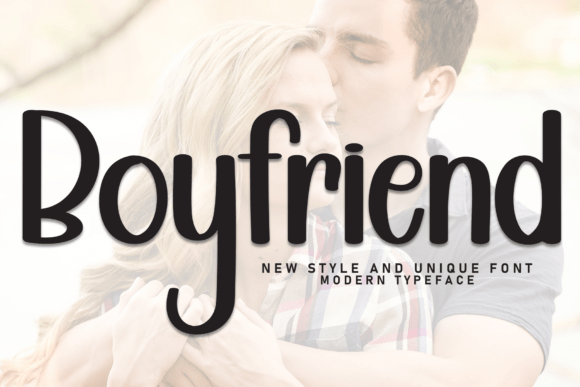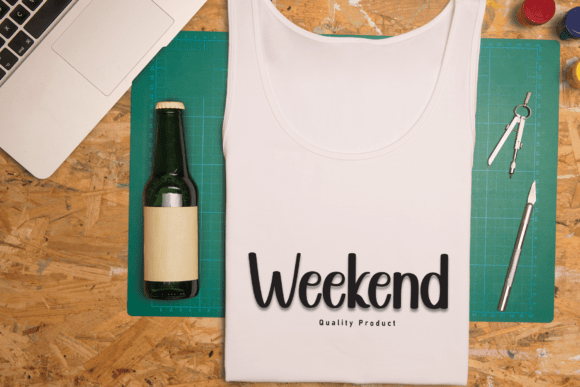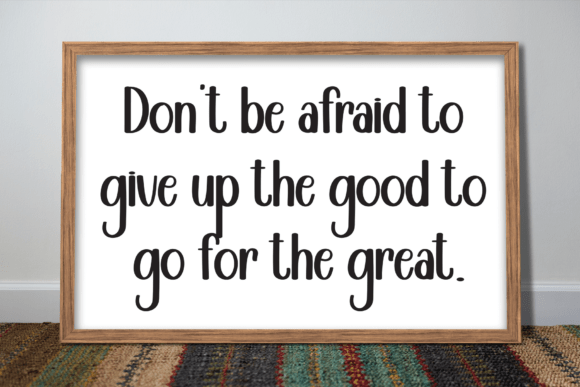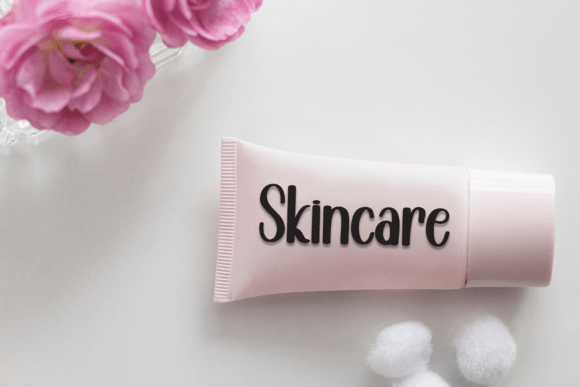
Boyfriend Font: A Playful Display Font for Cricut & DIY Projects
About the Boyfriend Font
Add a touch of class to your work with the Boyfriend Font, a truly exceptional typeface. Introducing a charming and delightful handwritten display font: An enchanting symphony of friendly cursive strokes, intentionally created to infuse sweetness and warmth in each line. Perfectly designed to lend a playful flair, this font exhibits an excellent choice for crafting romantic wedding invitations, heartfelt cards, or any design seeking a dash of fun. Create inviting and visually appealing designs that captivate and resonate with your audience using this irreplaceable font.
Boyfriend Font’s playful, friendly cursive is ideal for headlines, short text blocks on invitations or packaging, and social media graphics. It excels in projects requiring a touch of informal charm and warmth, such as branding for artisan goods, cafes, or children’s products. However, its handwritten nature makes it unsuitable for body text or UI elements where readability is paramount. Extended use would prove visually tiring.
Consider pairing Boyfriend Font with a clean sans-serif like Open Sans for body copy or a geometric sans-serif like Montserrat for a modern contrast. For a more luxurious feel, a classic serif such as Garamond could provide elegant balance. Avoid pairing it with other script fonts, which would create visual clutter.
The font’s core personality is undeniably friendly and approachable, conveying a sense of lightheartedness and charm. Its casual elegance makes it perfect for projects aiming for a warm, inviting aesthetic.